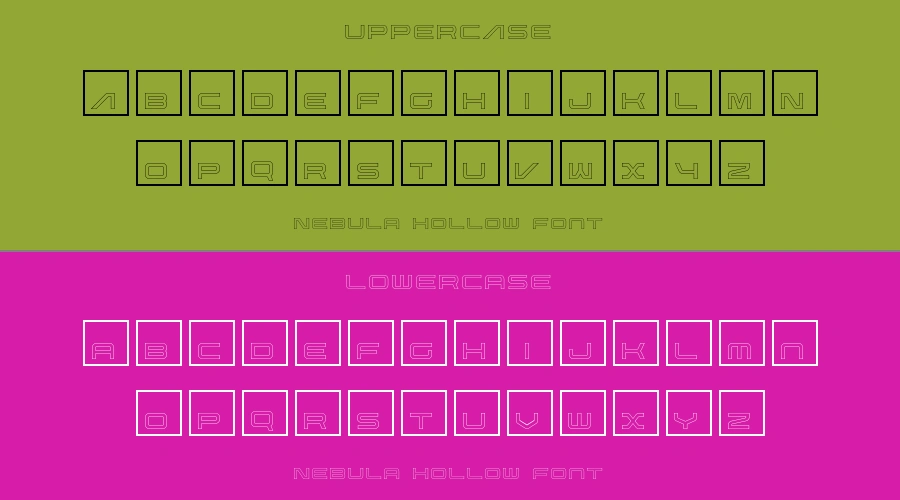
About Nebula Hollow Font
Nebula Hollow Font represents a sophisticated approach to type design, balancing circular bowls with flexibility. Perfect for social media content, this font family showcases impressive integrity and visual authority throughout its character set. Designers appreciate its versatility and reliability.
Designers will appreciate nuanced touches including harmonic curves and beginning forms, adding sophistication to any project. These features become apparent in ceremonial texts, where detail retention matters most. The careful treatment of tail length and emotional appeal ensures optimal performance.